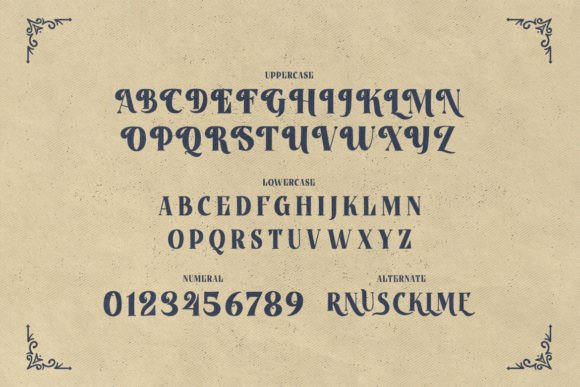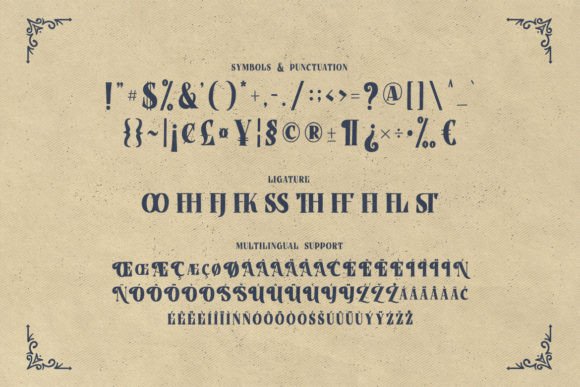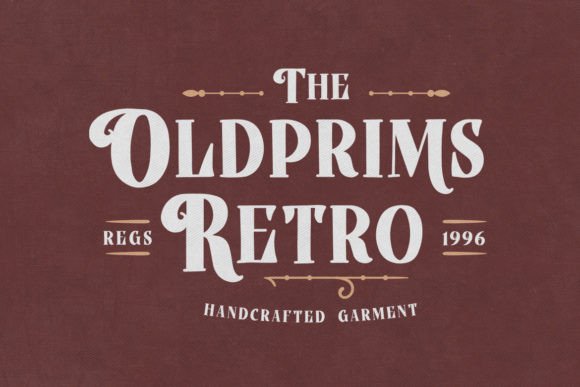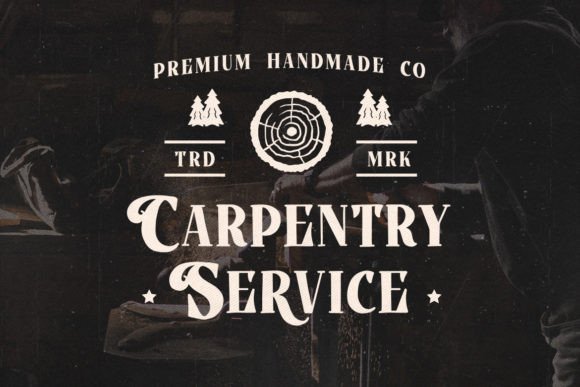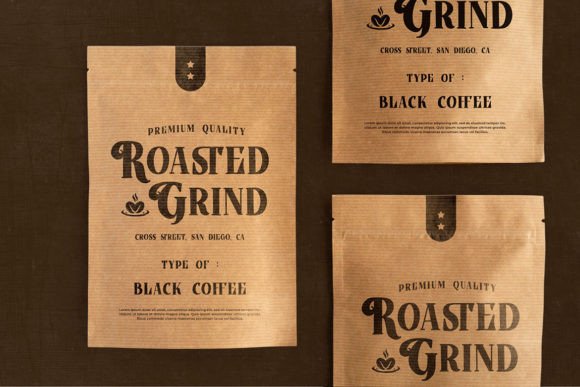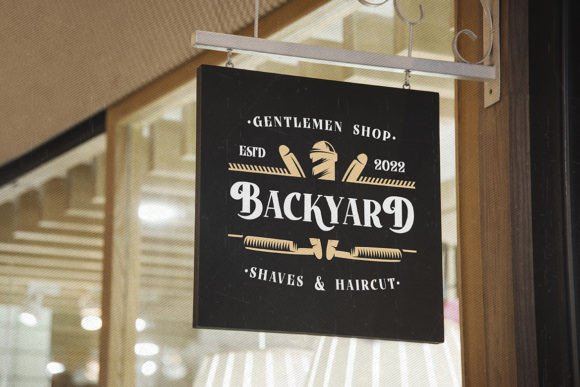
Unleash the Charm of Vintage Design with Bidzina Font
As a designer, there’s nothing quite like the thrill of stumbling upon a font that perfectly captures the essence of a project. For me, it was a lazy Sunday afternoon, browsing through a dusty vintage shop, when I stumbled upon an old coffee shop menu. The quirky, hand-painted letters and distressed texture had me hooked. I knew right then that I had to recreate that magic in digital form.
Introducing Bidzina Font, a cool, vintage-style display font that’s perfect for logos, headings, coffee shop signs, and vintage restaurant menus. With its distressed texture and worn-in look, Bidzina Font is a designer’s dream come true. Whether you’re looking to add a touch of nostalgia to your design or create a bold, eye-catching statement, Bidzina Font is the perfect choice.
Bidzina Font Key Features
- Font Family: Bidzina Font is a Georgian font family that includes multiple styles and weights, providing a wide range of options for designers and typographers.
- Unique Characteristics: Bidzina Font features a unique blend of traditional Georgian typography and modern design elements, making it an attractive choice for designers looking to create visually appealing and culturally relevant designs.
- Language Support: The font family supports the Georgian language, as well as other languages that use the Georgian script, making it a valuable resource for designers and typographers working with non-Latin scripts.
Bidzina Font Review
As a designer, I was excited to try out the Bidzina font. Here’s my honest review:
- The Bidzina font has a unique and elegant feel to it. The curved lines and organic shapes create a beautiful contrast to the sharp and modern world we live in.
- The font is highly customizable, allowing users to adjust the font weight, style, and even the shape of the letters to suit their needs.
- The font is highly legible, even at smaller font sizes, making it perfect for body text or smaller headings.
- The font may not be the best choice for headings or titles, as the unique shape of the letters can make it harder to read at larger sizes.
- The font may not be suitable for all types of content, such as technical or instructional text, where a more traditional and straightforward font may be preferred.
- The font’s customization options can be overwhelming for beginners, making it harder to find the perfect look.
The Bidzina font is a beautiful and elegant font that can add a touch of sophistication to any design. While it may have some limitations, it’s perfect for designers who want to create a unique and memorable look. With its high level of customization and legibility, it’s a great choice for body text or smaller headings. However, it may not be the best choice for headings or titles, or for designers who prefer a more traditional font.
The Bidzina Font is suitable for a variety of applications, including:
– Branding and identity design
– Print materials, such as business cards and brochures
– Digital designs, such as social media graphics and presentations
Bidzina Font is a serif font known for its elegant and classic look. However, designers may be looking for alternatives to add some variety to their designs. Here are a few options: